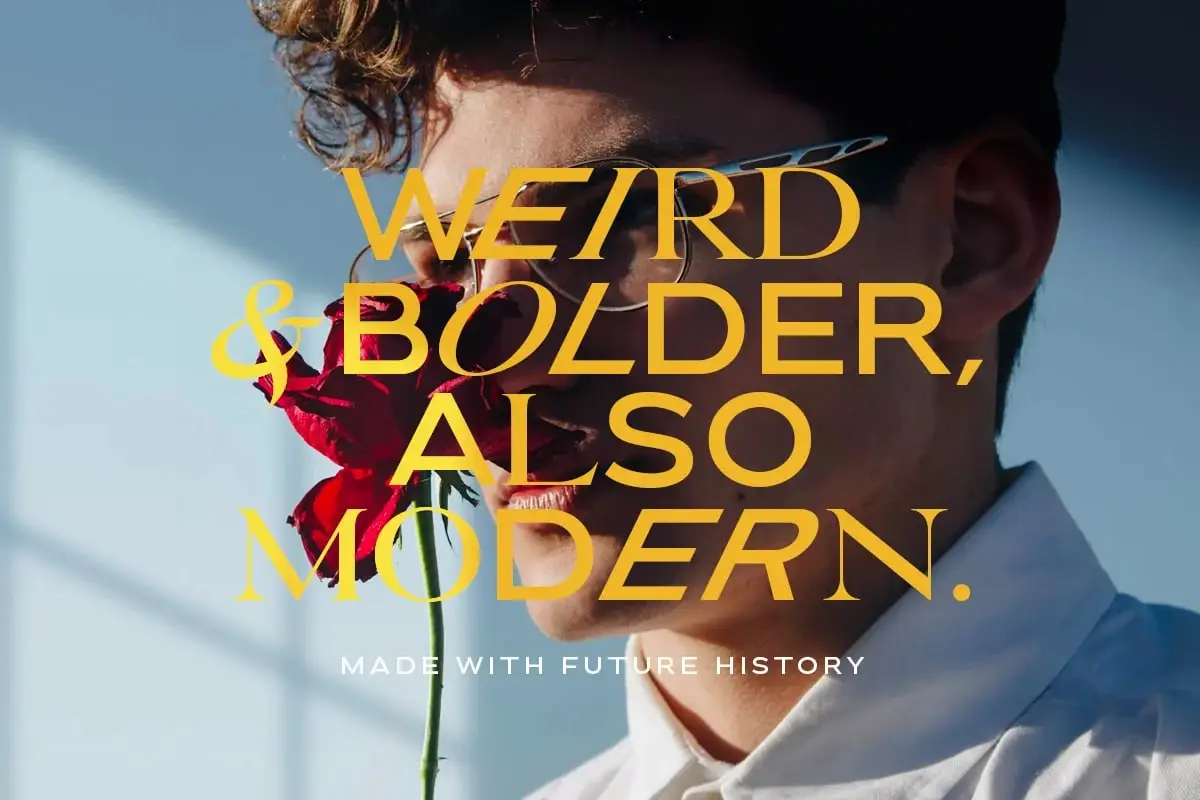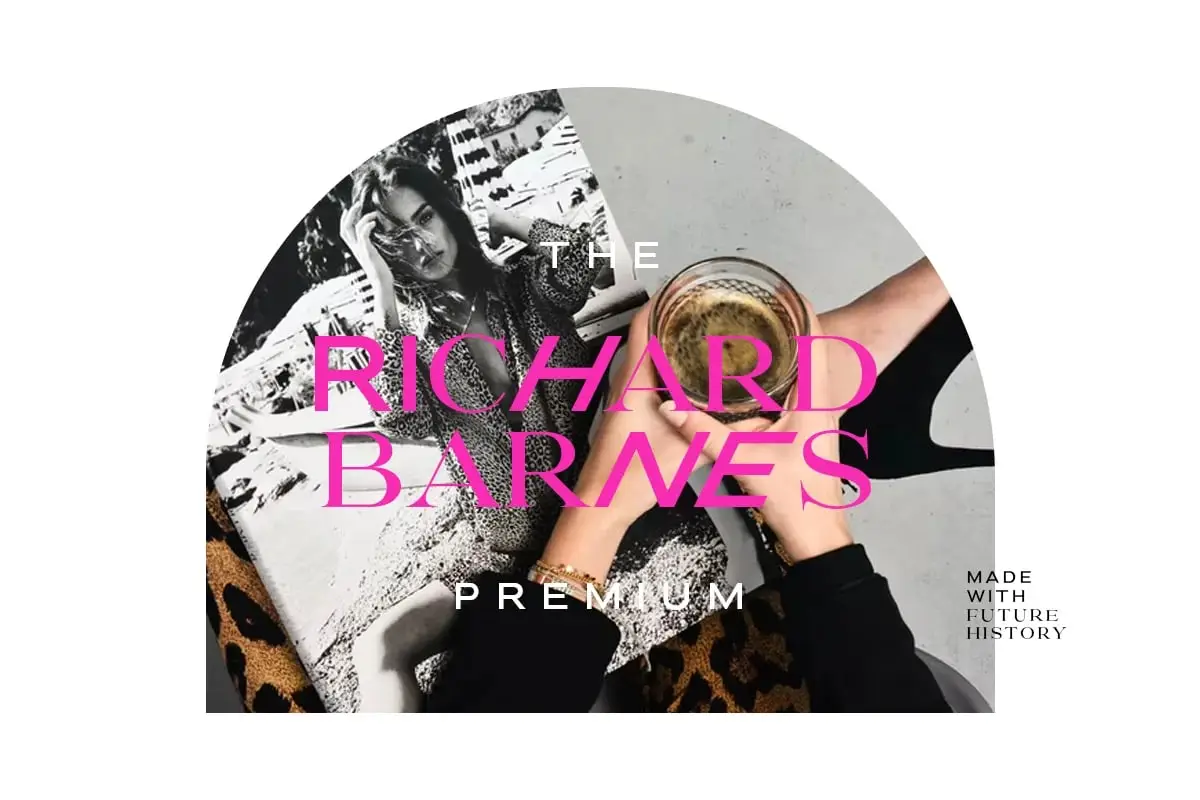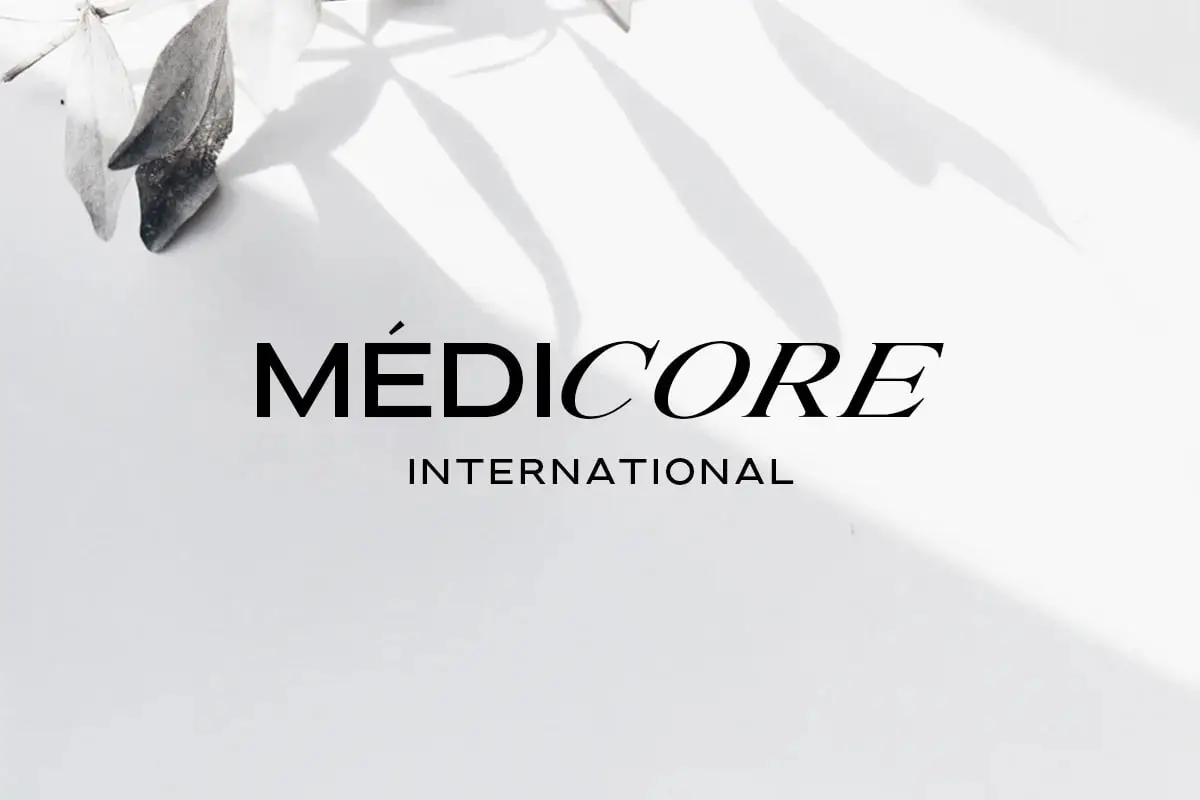
The Future History-2 In 1 Font offers a unique blend of modern and classic typography, perfect for a variety of design projects. This versatile font includes both regular and italic styles, allowing for dynamic text presentation.
- Ideal for branding and logo design
- Perfect for web design and UI elements
- Great for print materials like flyers and business cards